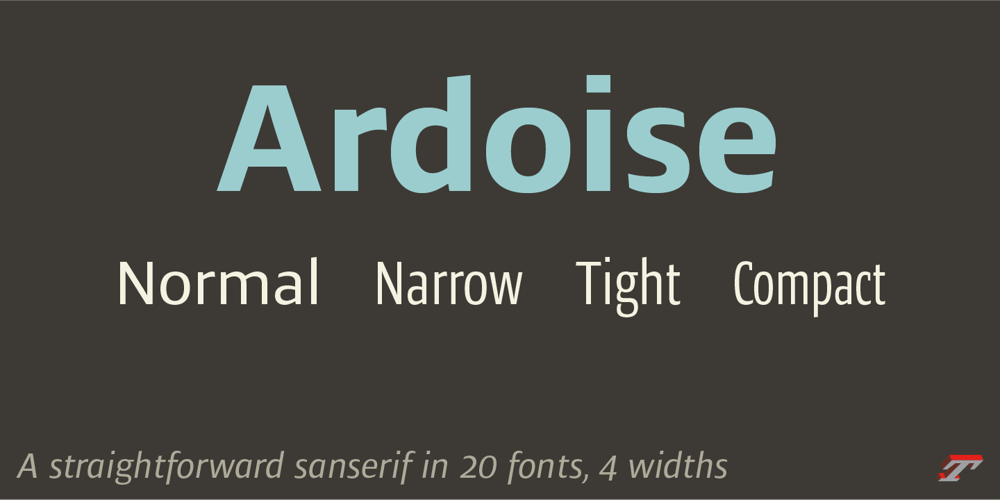
Ardoise Std
Ardoise Std font
Ardoise Std Font Family was designed by Jean François Porchez and published by Typofonderie. Ardoise Std contains 20 styles and family package options. A straightforward sanserif in 20 fonts, 4 widthsArdoise met the needs of publications. By extension, it met the needs of a newpapers typeface featuring a low contrast, straightforward forms, as Franklin Gothic. The verticals metrics and proportions of Ardoise are calibrated to match perfectly others Typofonderie families.Four widths to answer all situationsArdoise, inspired by the needs of today’s fine newspapers offers simple and tense shapes designed to renew and revitalize. Ardoise could be considered as an homage to Antique Olive, but quite indirectly and as an organic result of the designer’s longstanding admiration of the work of Roger Excoffon. Ardoise shares a purity and dynamics with Excoffon’s designs giving it a unique elegance and excellent readability. Its sturdiness means it is virtually immune it to distortion. In addition, a few alternates glyphs (a, c, g) can be used to alter the overall tone of a text setting.